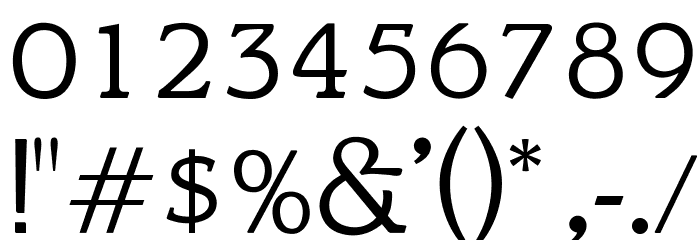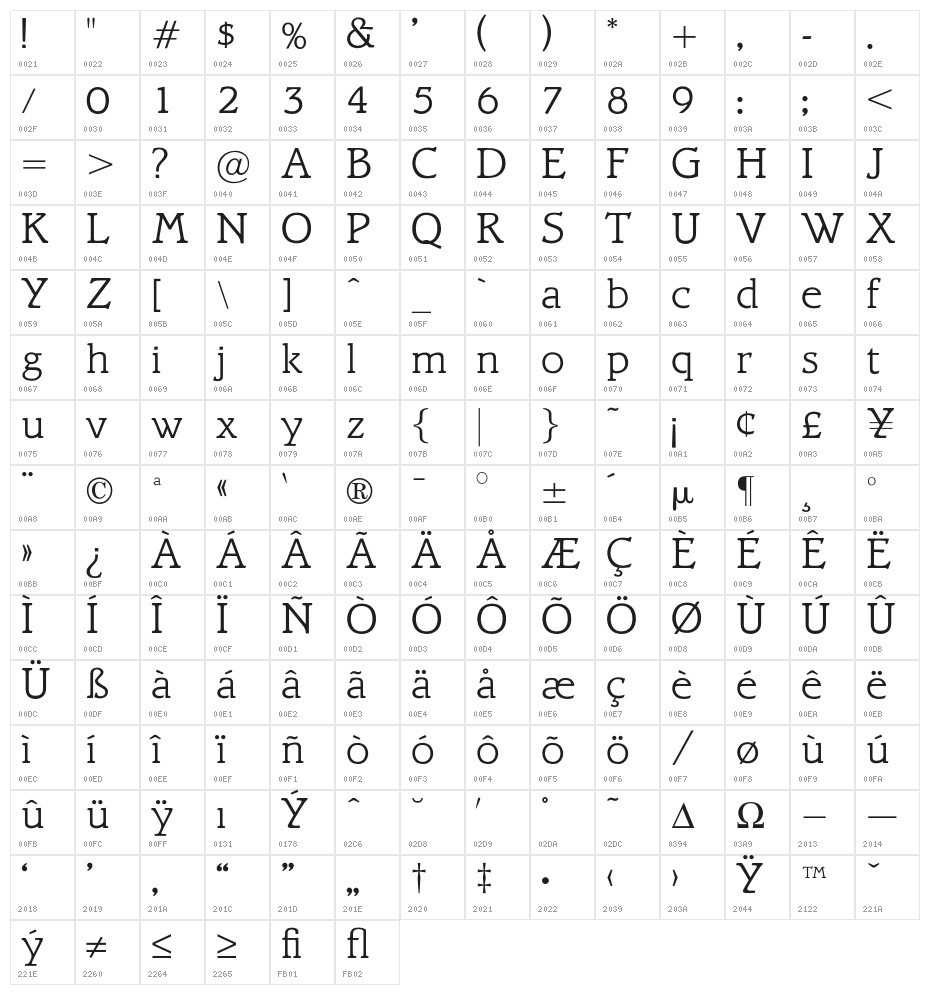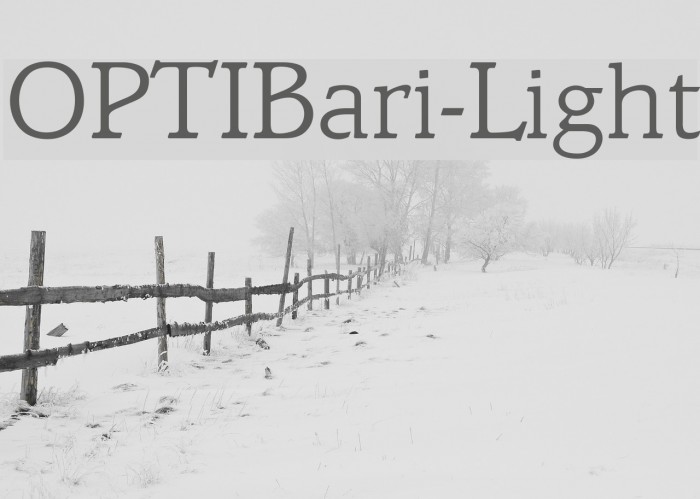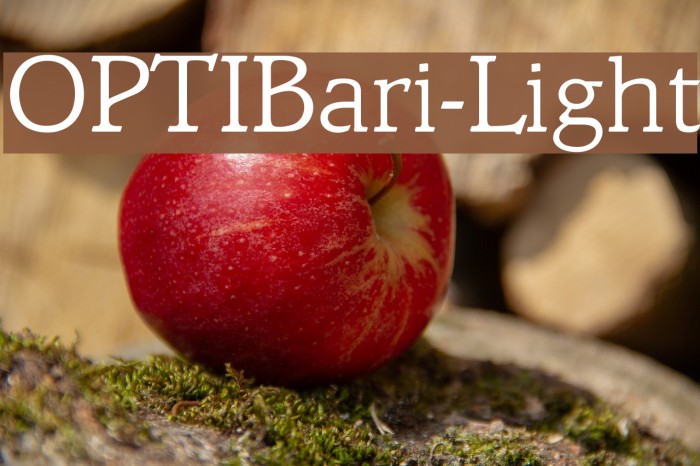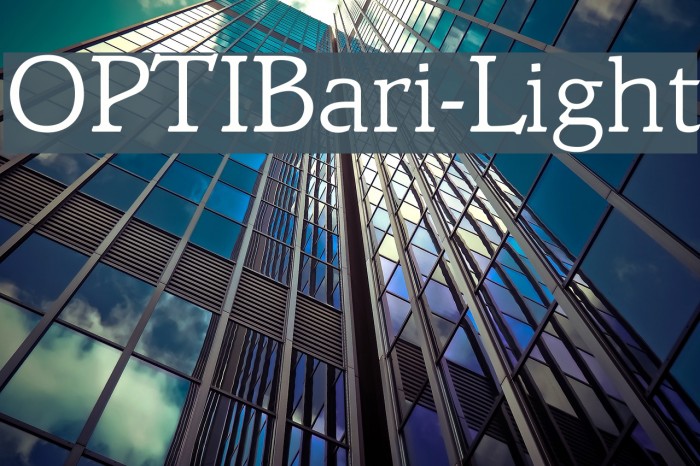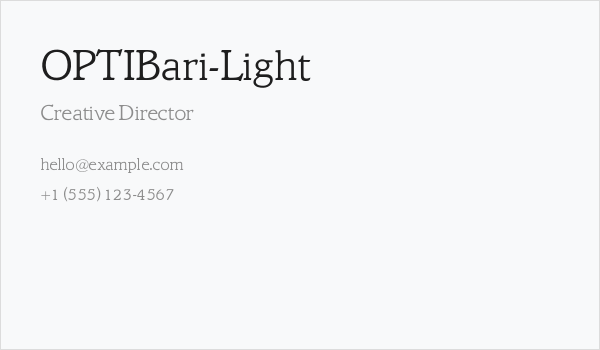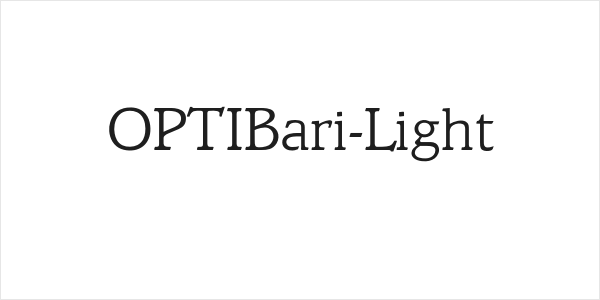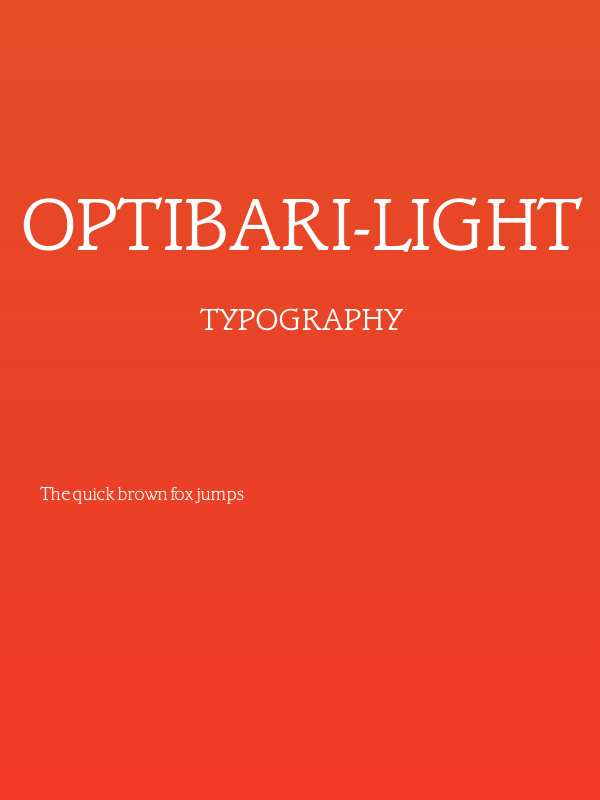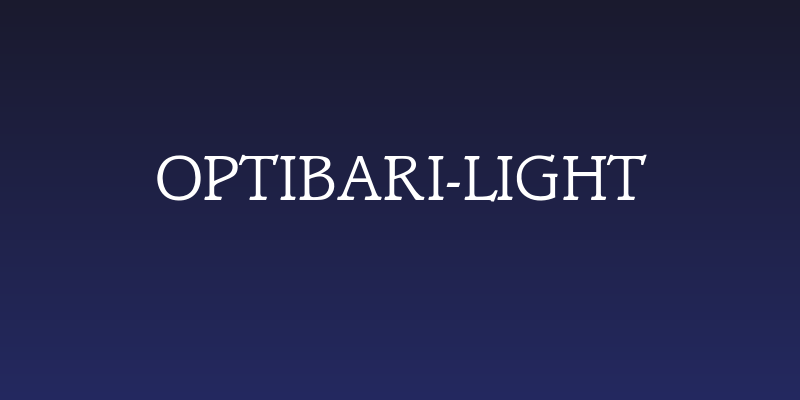
OPTIBari-Light Font
OPTIBari-Light Description
This font features a classic serif design with elegant, thin strokes that convey a sense of sophistication and readability. The uppercase letters are well-proportioned, with a slight contrast in stroke thickness that adds to their refined appearance. The lowercase letters maintain a consistent style, offering a smooth and harmonious flow. The numerals are clear and distinct, making them suitable for both text and numerical data. Special characters are well-integrated, ensuring versatility in various types of content. Overall, this font exudes a timeless charm, making it ideal for formal and professional applications.
| Proposed Projects | Ideal for editorial design, book covers, formal invitations, and corporate branding. |